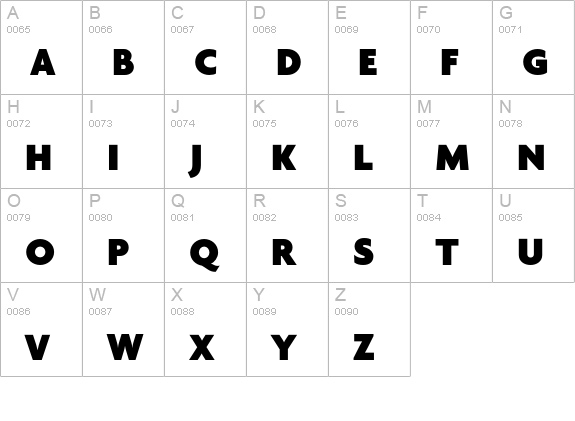
Agenda-Black is a maximum-weight, dramatic variant in the Agenda typeface family \xE2\x80\x94 well suited to maximum-impact headlines, posters, and packaging.
Agenda-Black font is a sleek and modern typeface that exudes sophistication and elegance. Its bold and striking design makes it perfect for headlines, titles, and other display purposes. The sharp edges and clean lines of this font give it a contemporary and professional look that is sure to make a statement. What sets Agenda-Black font apart is that it is available for free download at FontsMarket.com. This means that you can easily access this stylish font without any cost, making it a valuable addition to your font collection. Whether you are a designer looking for a bold typeface to elevate your projects or a creative individual in need of a refined font for personal use, Agenda-Black font is a versatile and eye-catching choice that won't break the bank. Download it today and add a touch of sophistication to your designs!